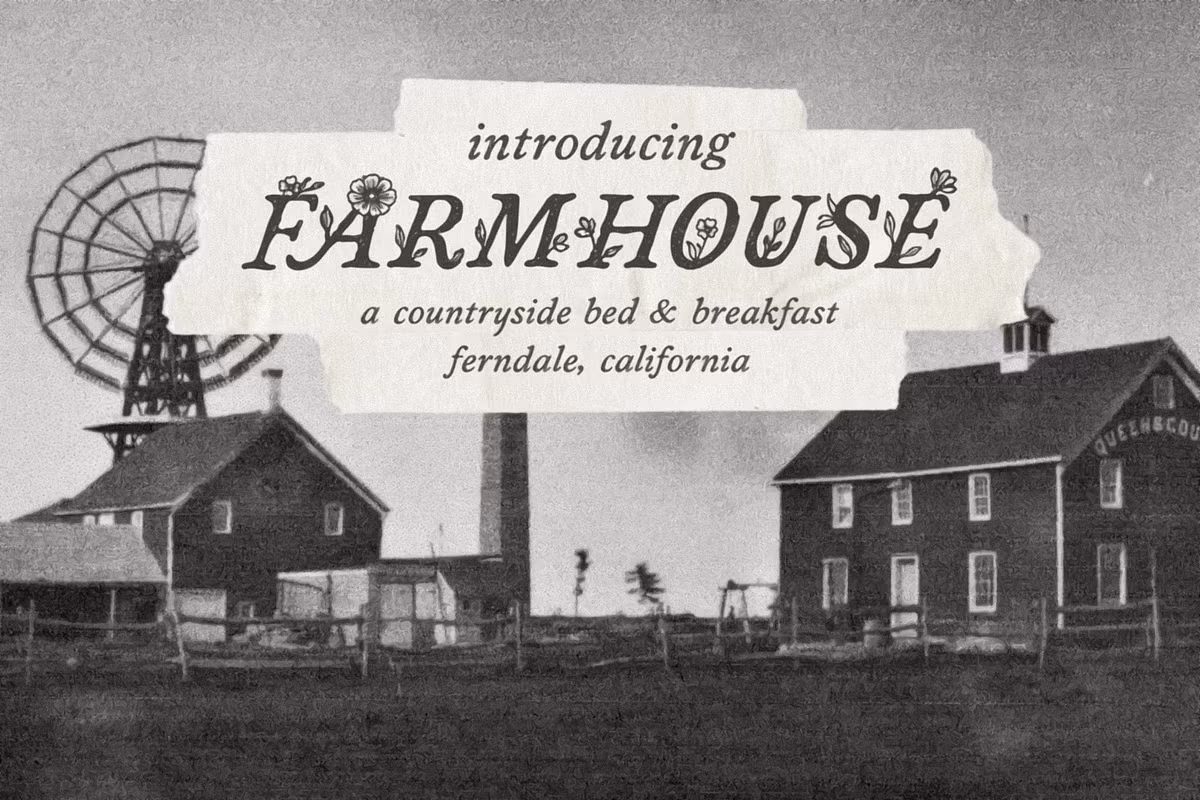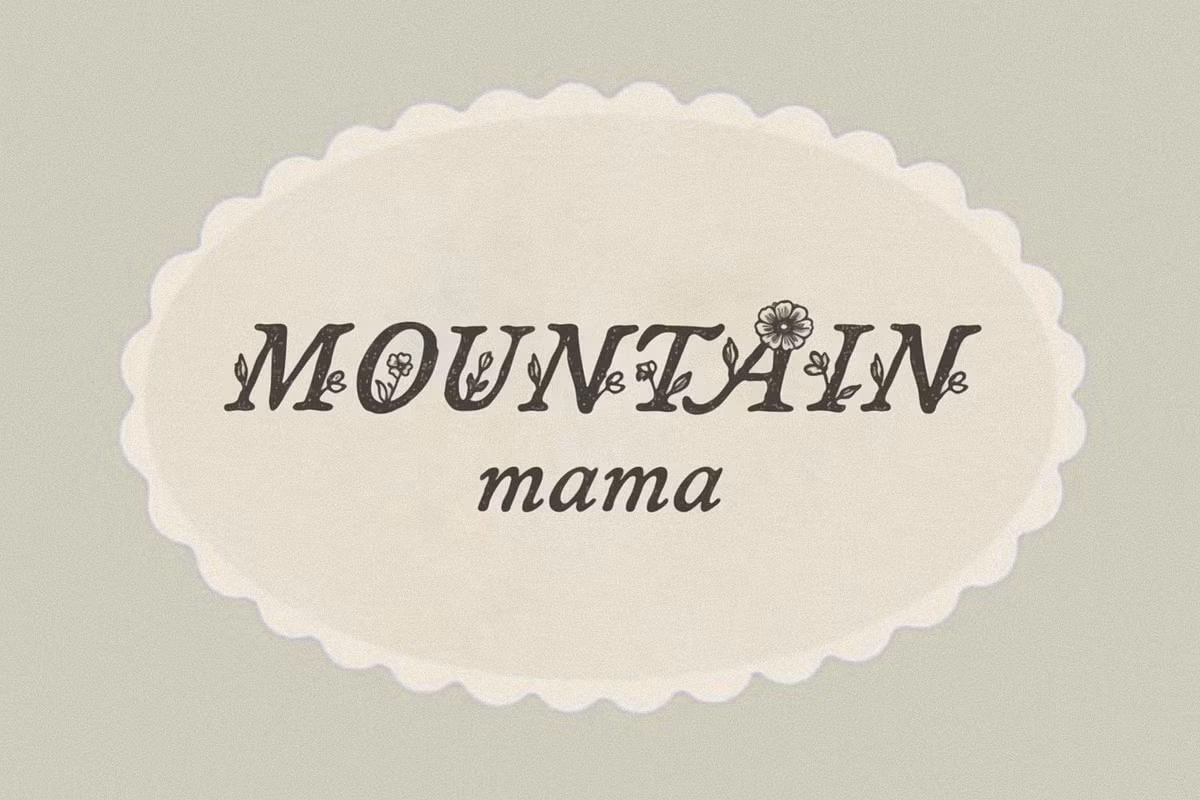
Field Notes: Vintage-Inspired Floral Display Font and Icons
Field Notes
Field Notes: Vintage-Inspired Floral Display Font and Icons
The Field Notes font is a vintage style floral display font that adds a feeling of times and elegance to design projects. The Field Notes font shows flower details and a set of characters that work for people who want a fun and classy look in their work. I have used the Field Notes font for ads, album covers, clothing, and invitations, and the Field Notes font fits well in each case. The Field Notes font can be used in various ways. The Field Notes font looks good in each. The Field Notes font is an addition to any designer’s toolkit.
Vintage-inspired floral display font sample
Example of the Field Notes font style
Design Style of Field Notes
The design of the Field Notes font has a unique feel. The vintage feel makes the letters look like style type. Each letter in the Field Notes font has details that twist together. Those floral details give the letters an artistic look. The curves and small decorations on the Field Notes font add personality. The unique personality works well for projects that want charm and elegance.
Field Notes uses both lowercase characters. Field Notes lets you try different ways to write. The floral designs stay gentle while keeping the text clear, still making a beautiful appearance. The balance matters a lot. Designers need that balance. Designers want work that reads easily and looks interesting.
Character Sets and Glyphs
I find the Field Notes font useful because the character set is extensive. The character set has 182 glyphs, covering uppercase letters, lowercase letters, numbers, symbols, and punctuation marks, so you have everything you need for writing tasks. The character set lets you create text layouts and compositions without losing style.
Character set example of Field Notes font
Character set showcasing the Field Notes font
I find that the English characters allow me to use Field Notes for tasks ranging from making headlines to designing invitations. The English characters work well. The floral elements inside the characters add character. The floral elements make the text look good and improve the overall design.
Use Cases for Field Notes Font
I use Field Notes in the design projects I work on. Field Notes works well for headings, labels, and small blocks of text. Here are some good uses for Field Notes:
• Advertisements: Use Field Notes in your promotional materials to attract attention with its unique style.
• Album Covers: The floral aesthetics make the album cover a choice for music albums as they match the mood of the songs, especially folk or indie music.
• Apparel: I have used the font on t-shirts, bags, and other merchandise, giving the brand a distinctive look.
• Invitations: For weddings, parties, or events, Field Notes makes invitations look elegant.
• Logos: The font’s special look helps create logos that stand out and grab attention.
• Web and Signage: Field Notes works well in various formats, making websites and signage look stylish.
Field Notes font in use on merchandise
Field Notes font applied to merchandise design
Pairing Suggestions for Field Notes
When considering typography, pairing fonts can elevate a design. I have seen that pairing fonts makes a design feel stronger. Below are some ideas for pairing Field Notes with typefaces:
• Sans Serif Fonts: Pairing Field Notes with a sans serif font like Montserrat or Lato creates a pleasing contrast. The simplicity of the sans serif font balances the look of Field Notes.
• Serif Fonts: To maintain a theme, consider pairing it with a serif font, such as Merriweather or Playfair Display, which works well to create an elegant look.
• Handwritten Fonts: For a personal touch, combine Field Notes with a handwritten font like Pacifico or Dancing Script, adding a unique charm to your designs.
The Field Notes font is an inspired floral display typeface that offers both beauty and function. With a comprehensive character set and a unique design style, it works well in various projects, including advertisements and packaging. By learning how to pair the Field Notes font with other types and following licensing rules, I can maximize its potential in my designs. I truly enjoy the look of the Field Notes font, letting it elevate my work.